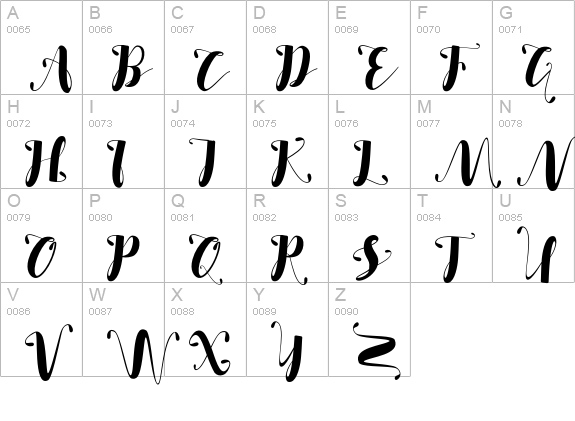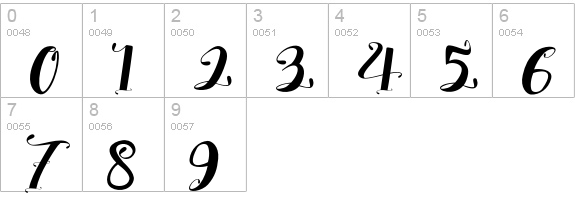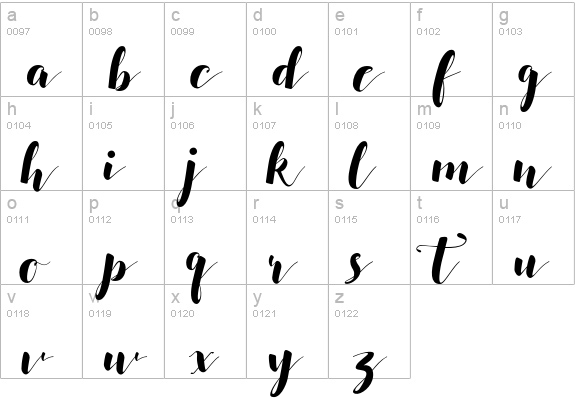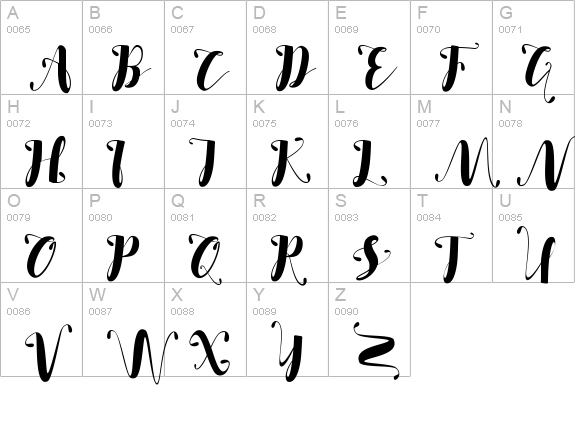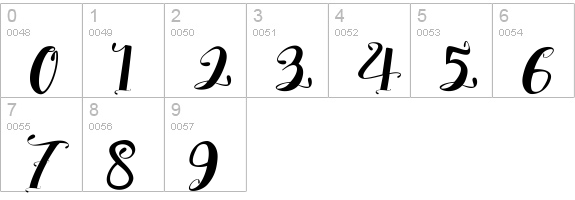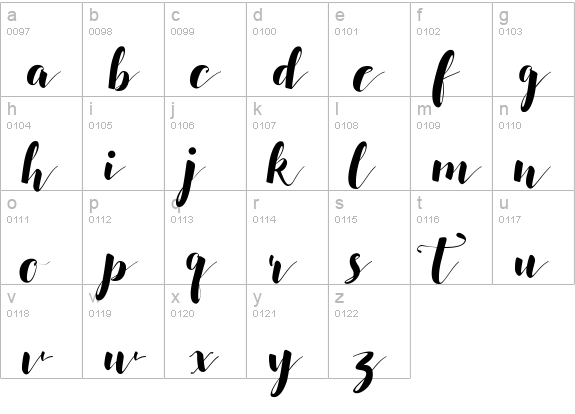
SALSABILLA Font Details
Introducing SALSABILLA font, a delightful and whimsical typeface that will add a touch of playfulness to your projects. This unique font features elegant curves and stylish flourishes, making it perfect for a wide range of design applications. Whether you're creating invitations, branding materials, or social media graphics, SALSABILLA font will bring a sense of charm and sophistication to your work. What makes SALSABILLA font even more appealing is that it is available for free download at FontsMarket.com. This means you can easily access this beautiful font and use it in your projects without any cost. Embrace the creativity and versatility of SALSABILLA font today and elevate your designs to a whole new level. Download it now and let your imagination run wild!